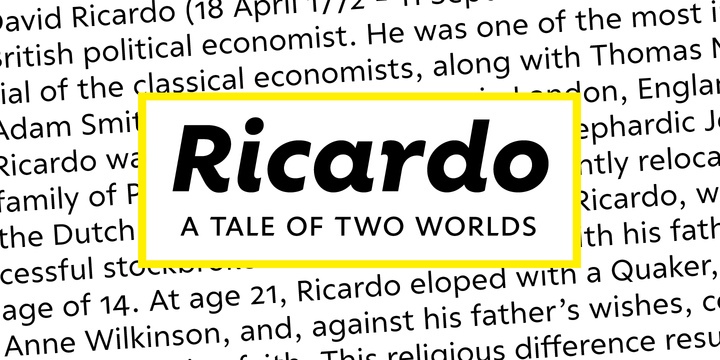
Ricardo Font
This font is perfect for corporate branding, professional business documents, modern tech company logos, contemporary magazine layouts, sleek product packaging, minimalist website designs, architectural firm presentations, and clean editorial publications.
The Ricardo Font Free Download is exciting because it delivers exceptional clarity and modern sophistication with its clean geometric forms and balanced proportions that create a strong, confident presence in any professional design context.
The Ricardo font family includes thin, light, regular, medium, bold, and black weights, plus corresponding italic versions, providing designers with comprehensive typographic control for building cohesive brand systems and hierarchical layouts.
Whether you're developing corporate identity systems, designing contemporary publications, or creating digital interfaces, the Ricardo Font offers outstanding versatility and professional appeal. Its precisely engineered letterforms showcase perfect harmony between functionality and aesthetic refinement, making it ideal for both large display applications and extended reading. The font's clean architecture communicates reliability and innovation, making it particularly valuable for technology companies and forward-thinking brands. Professional designers value its exceptional legibility across all sizes and its seamless performance in both digital and print environments. The typeface's modern character reflects contemporary design trends while maintaining timeless professional qualities. From business presentations to mobile applications, this font performs consistently across diverse platforms and contexts. The Ricardo Font Free Download provides exceptional value for designers seeking reliable typography that projects competence and modernity. Its neutral yet distinctive personality allows brands to communicate effectively without overwhelming their message. The font's optimized spacing and careful construction ensure optimal readability and professional presentation in any application, making it an essential tool for contemporary design projects.